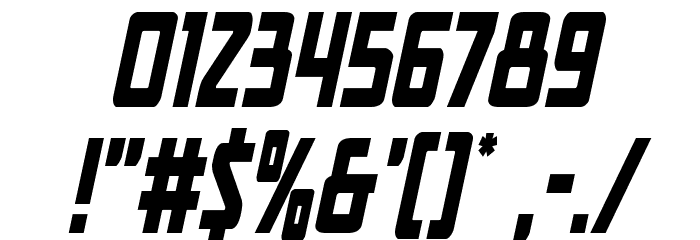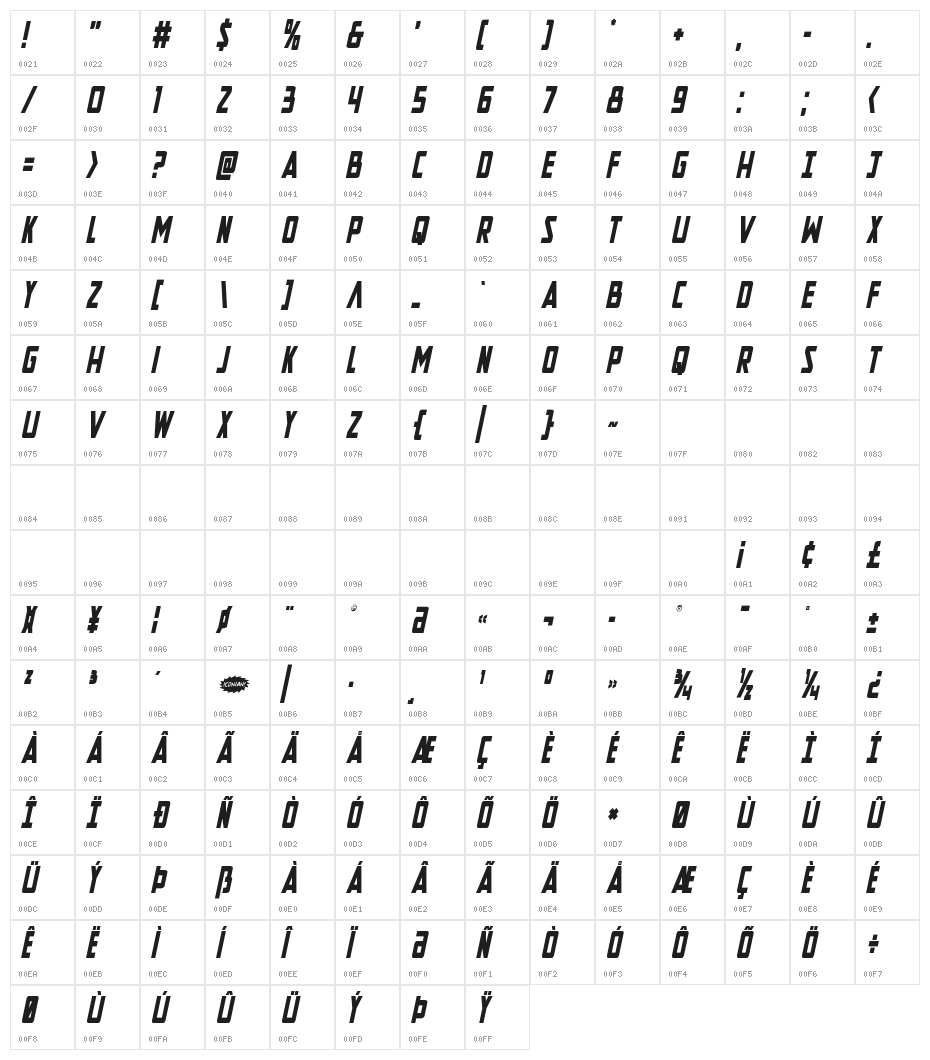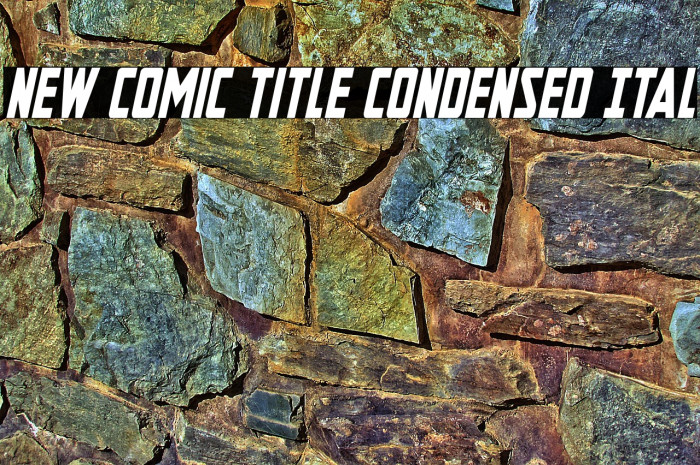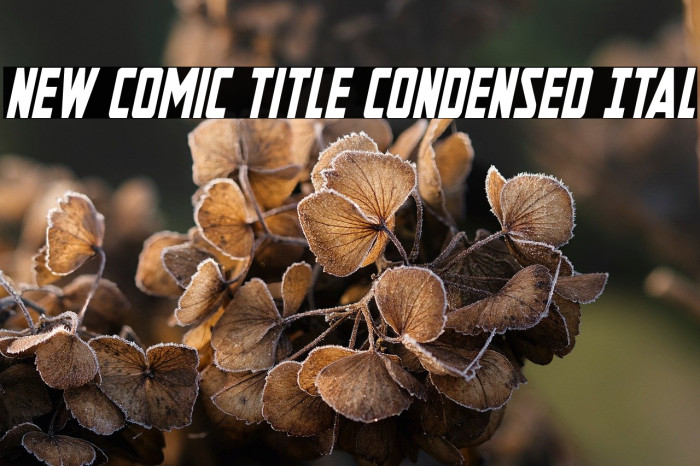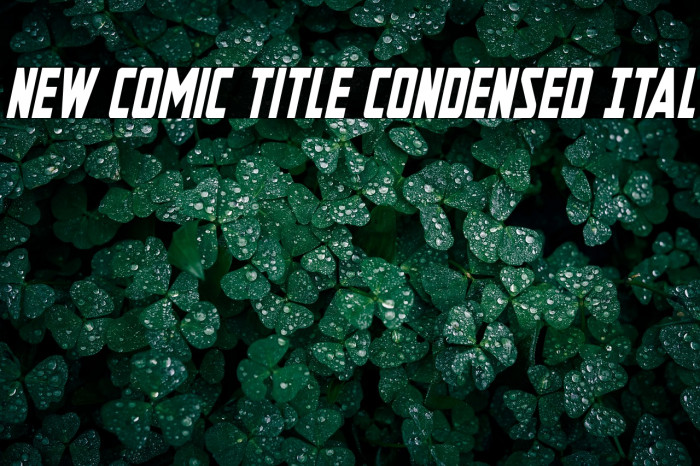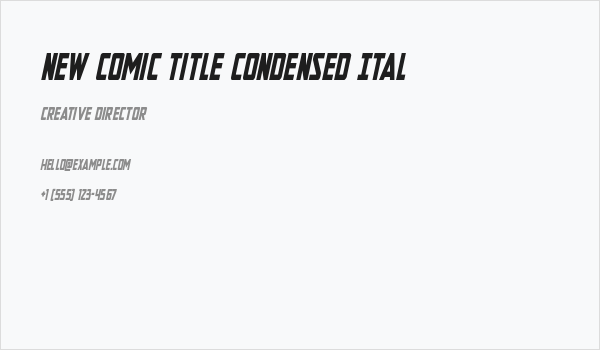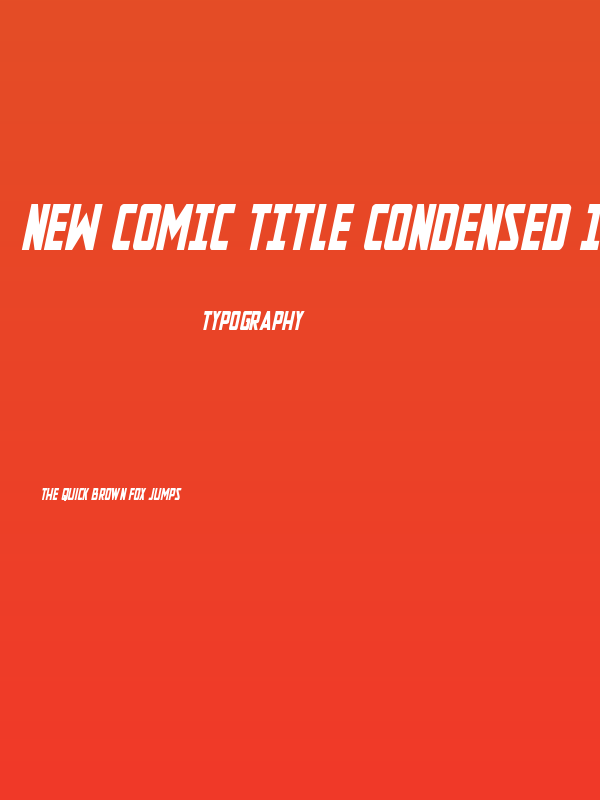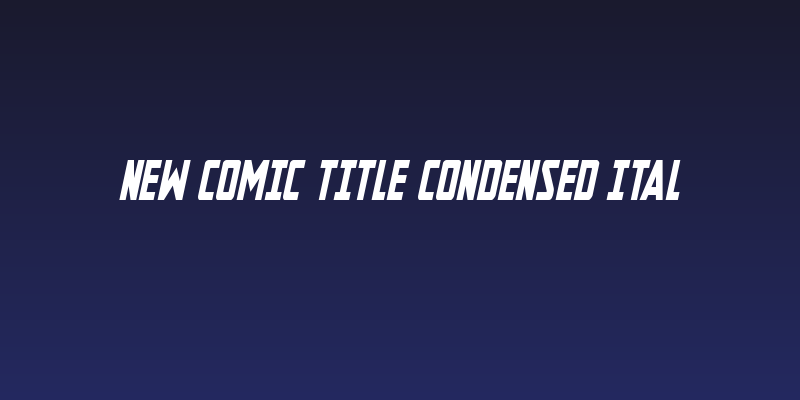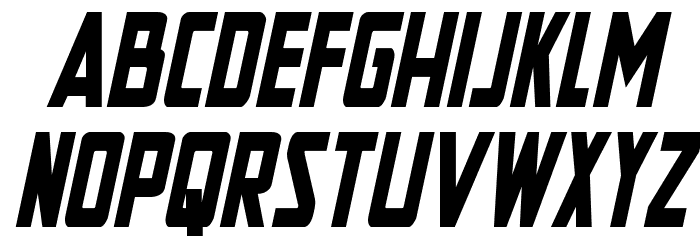
New Comic Title Condensed Ital Font
New Comic Title Condensed Ital Description
This font features a bold, condensed style with a distinct italic slant, giving it a dynamic and energetic appearance. The characters are tightly spaced, enhancing its compact look. The uppercase letters have a strong presence, while the lowercase letters maintain a consistent style. The numerals are clear and bold, matching the overall aesthetic. Special characters are well-integrated, maintaining the font's cohesive design. This font is suitable for projects that require a modern and impactful typeface.
| Proposed Projects | Ideal for comic book titles, posters, branding, and any design needing a bold and energetic typeface. |